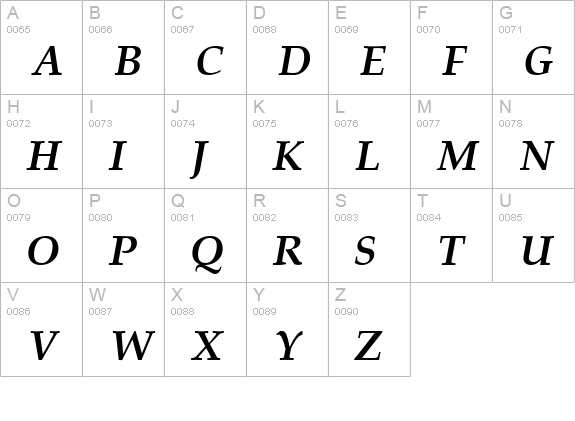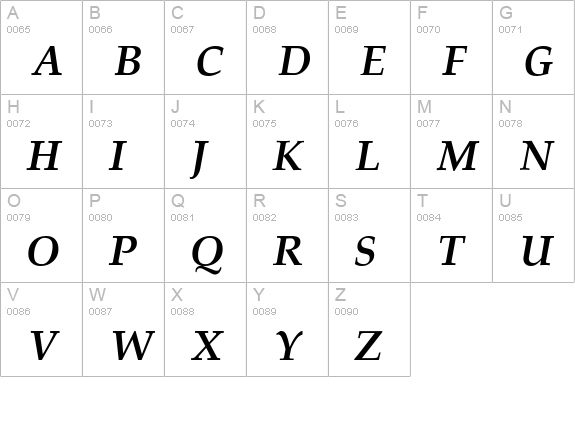
Palladia Bold Italic is a strong, high-contrast, italic variant in the Palladia typeface family \xE2\x80\x94 well suited to headlines, attention-grabbing titles, and strong calls-to-action.
Palladia Bold Italic font is a stunning and versatile typeface that captures attention with its bold yet elegant presence. This font exudes confidence and sophistication, making it the perfect choice for any design project that requires a touch of class. With its unique combination of boldness and italic styling, Palladia Bold Italic stands out among other fonts, adding a distinctive flair to any text. Whether you are designing a logo, creating a poster, or crafting a website, this font will elevate your project to new heights. The smooth curves and graceful strokes of Palladia Bold Italic bring a sense of harmony and balance to your typography. Each character is meticulously crafted to ensure legibility and readability, even at smaller sizes. This attention to detail ensures that your message is conveyed clearly and effectively, leaving a lasting impression on your audience. One of the most remarkable aspects of Palladia Bold Italic font is that it is available for free. Yes, you heard it right - this exceptional font can be freely downloaded at FontsMarket.com. This generous offering allows designers, creatives, and enthusiasts alike to access this high-quality font without any financial constraints. It opens up a world of possibilities, enabling you to unleash your creativity without limitations. Whether you are a professional designer or a hobbyist, Palladia Bold Italic font is a must-have addition to your font library. Its versatility and timeless appeal make it suitable for a wide range of applications, from branding and advertising to editorial design and more. Embrace the beauty and power of Palladia Bold Italic font and let it transform your designs into masterpieces. Download it for free today at FontsMarket.com and let your creativity soar.